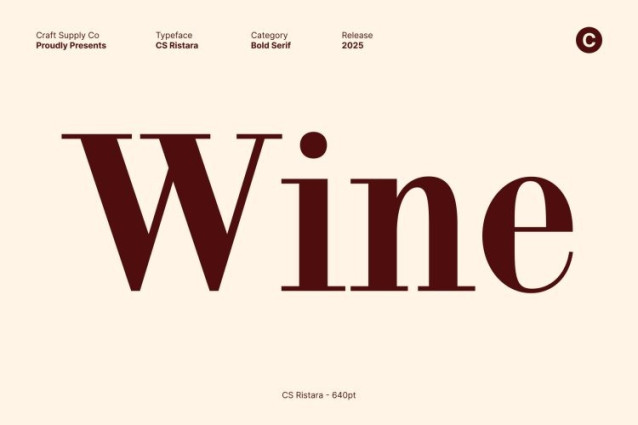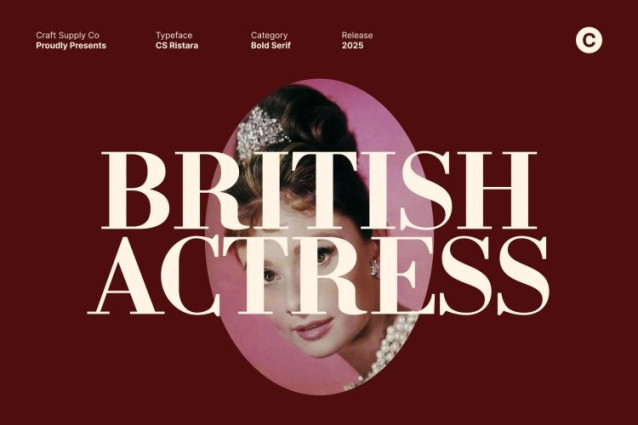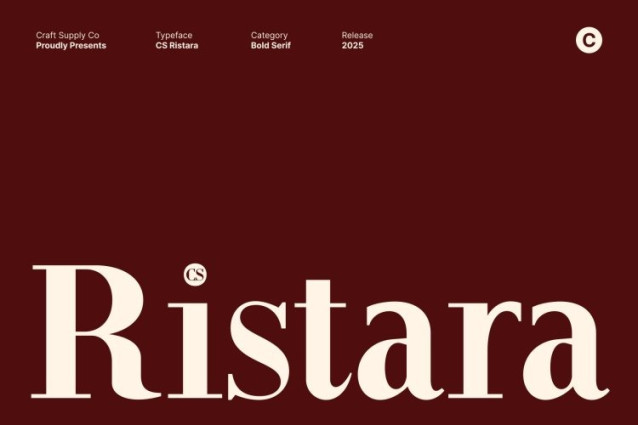
CS Ristara Font
CS Ristara Font – This font brings the timeless charm of classic serif typography into a clean, contemporary form. Its elegant structure, sleek serif detailing, and balanced proportions create a font that feels polished, graceful, and effortlessly sophisticated. Designed for those who value clarity and refinement, this font elevates every layout with its poised presence.
Clean, Sleek Shapes for a Captivating Look
Crafted with precision, this font features smooth curves, modern lines, and crisp serif points that strike a perfect harmony between tradition and modern aesthetics. The clean construction gives the font a fresh, minimal feel, while its classic roots maintain warmth and personality. This fusion results in a typeface that is both visually striking and beautifully timeless.
Perfect for Editorials, Branding, and Luxury Design
This font thrives in high-end visual environments. Its elegant character makes it ideal for editorial spreads, magazines, brand identities, product packaging, fashion campaigns, and upscale promotional materials. Every letter exudes confidence and sophistication, giving your designs a refined, premium look.
Versatile and Designed for Lasting Impact
Whether used in bold headlines or delicate subheadings, this font adapts seamlessly while maintaining its stylish charm. Its modern classic personality ensures consistent elegance across various applications logos, invitations, posters, or digital media. With this font, every design feels intentional, artistic, and unforgettable.